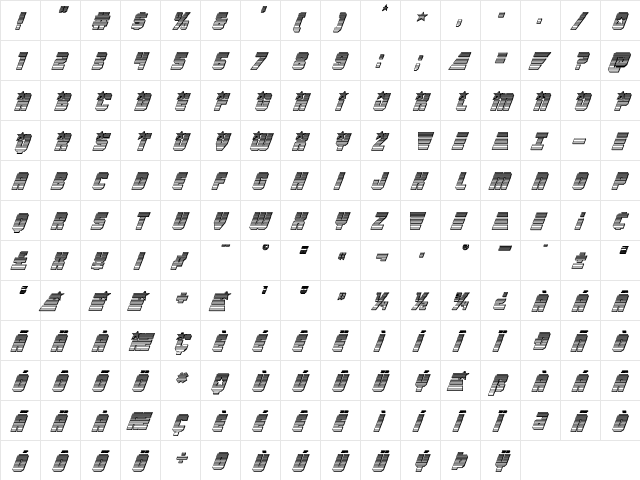
Army Rangers Chrome Italic Italic
Design Context for Army Rangers Chrome Italic Typeface
Army Rangers Chrome Italic has the no-nonsense character of military stencilling and tactical signage, projecting authority and directness. The slanted form adds forward momentum and visual energy.
A strong choice for security brands, outdoor gear, and high-stakes visual communication.